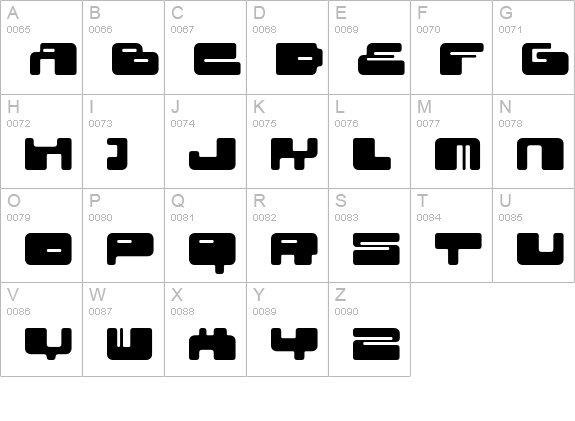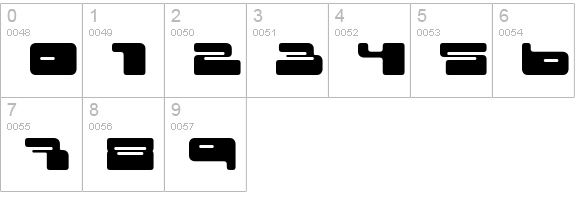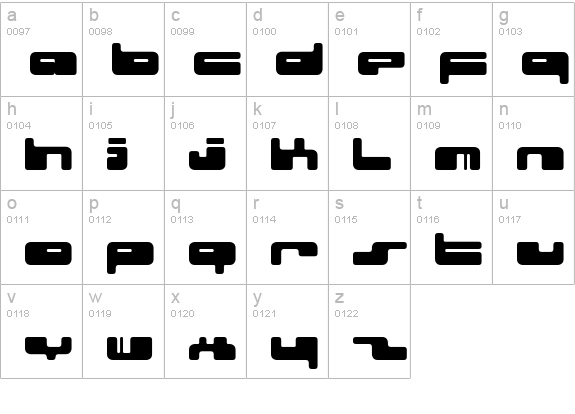
02.10 fenotype Font Details
The 02.10 Fenotype font is a stunning display typeface that exudes elegance and sophistication. Its sleek lines and modern aesthetic make it the perfect choice for a wide range of design projects, from branding to editorial design. This versatile font features unique letterforms that will add a touch of style to any project. What's even better is that the 02.10 Fenotype font is available for free download at FontsMarket.com. That's right – you can enhance your designs with this beautiful font without having to spend a dime. Don't miss out on the opportunity to elevate your work with this striking typeface that is sure to make a lasting impression. Download the 02.10 Fenotype font today and take your designs to the next level!